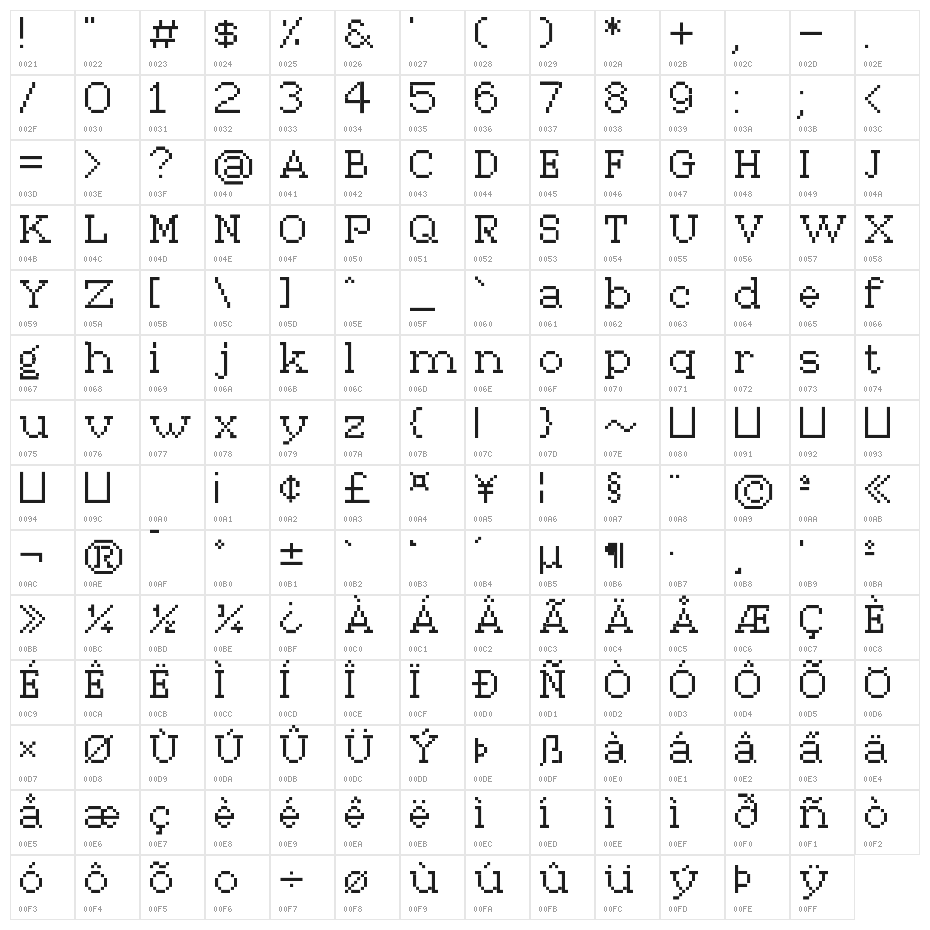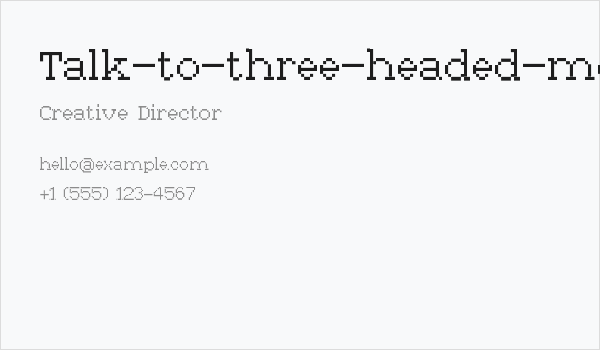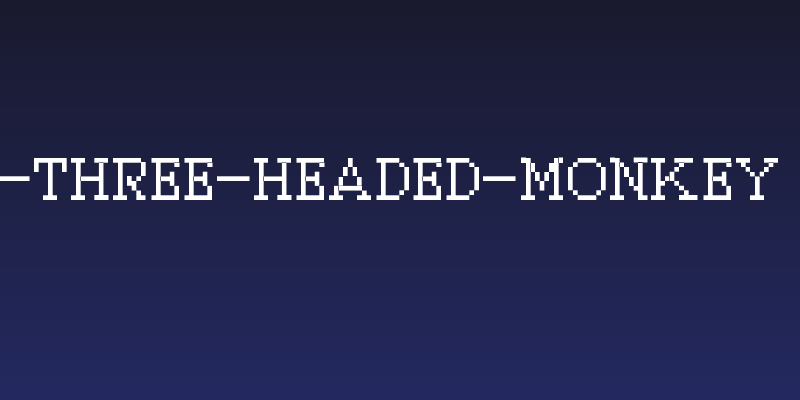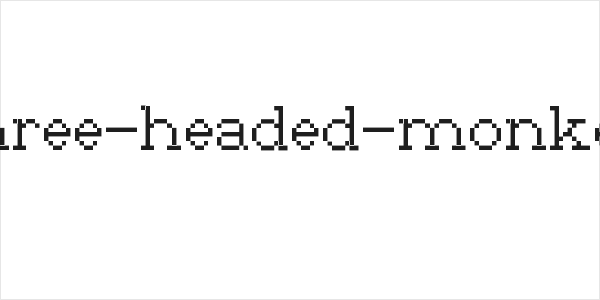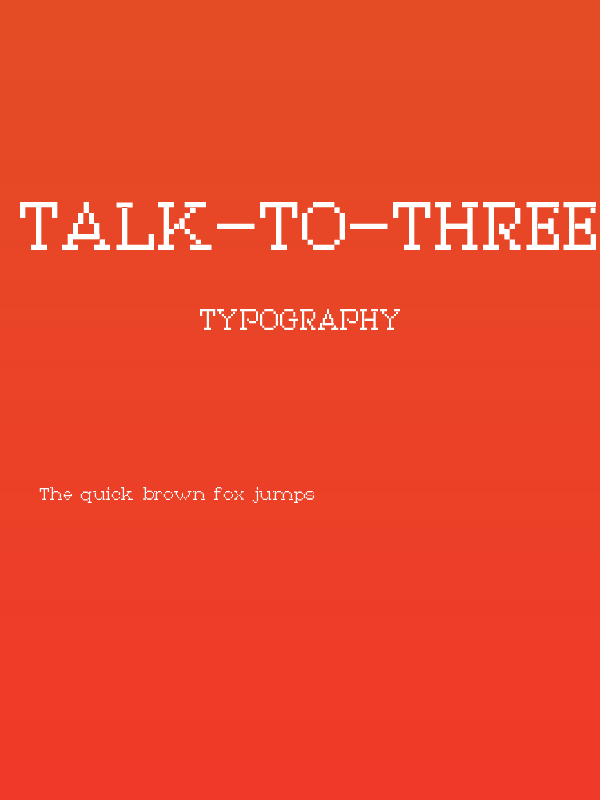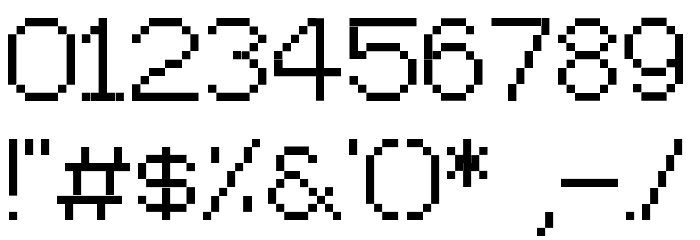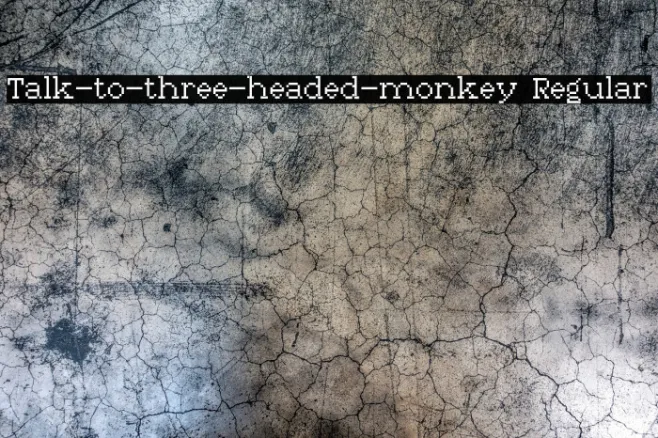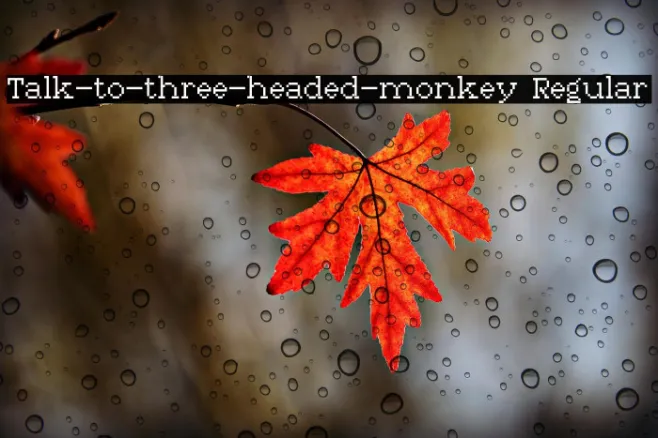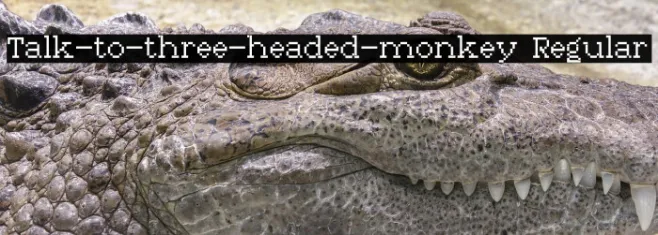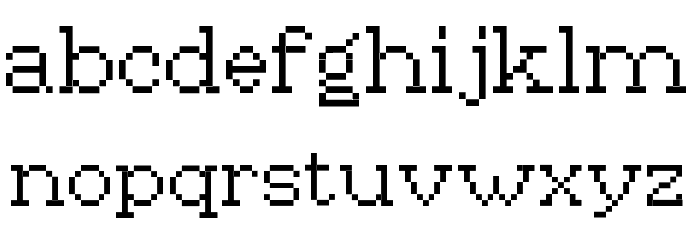
Talk-to-three-headed-monkey Regular Font
Talk-to-three-headed-monkey Regular Description
This font features a pixelated, retro style reminiscent of early computer graphics and video games. Each character is composed of distinct square blocks, giving it a digital, grid-like appearance. The uppercase and lowercase letters maintain a consistent height, with the lowercase characters slightly smaller in width. Numbers and special characters follow the same pixelated design, ensuring uniformity across all glyphs. The overall look is nostalgic, evoking a sense of vintage technology and classic arcade games. Its unique style makes it stand out, ideal for projects that aim to capture a retro or tech-inspired aesthetic.
| Overall Style | Vintage |
| Use Case | Logos, Headlines, Posters |
| Proposed Projects | Ideal for retro-themed designs, video game graphics, tech-inspired posters, and digital art projects. |